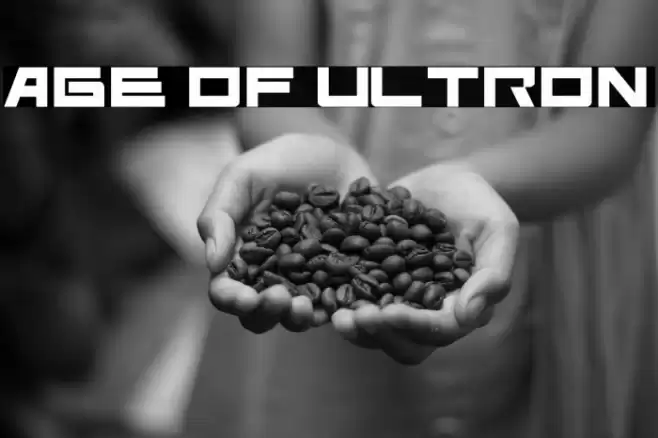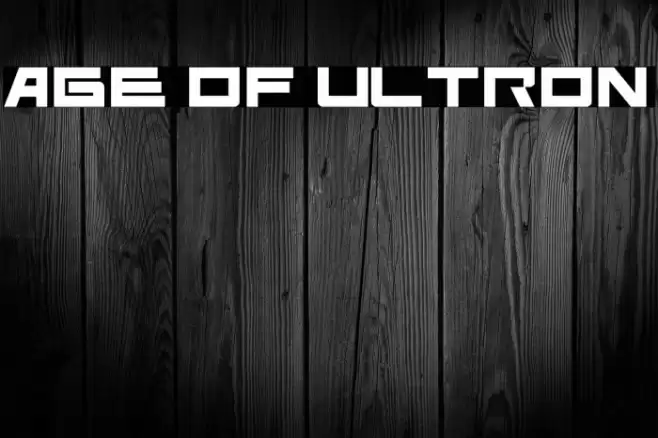
Age of Ultron Font
Age of Ultron Description
This font features a bold, futuristic design with strong geometric shapes and sharp angles. The characters are constructed with a consistent thickness, giving it a uniform and cohesive appearance. The style is reminiscent of science fiction themes, with a modern and technological feel. The uppercase letters are particularly striking, with unique cuts and lines that add a sense of movement and dynamism. The overall look is clean and structured, making it suitable for projects that require a bold statement.
A bold, futuristic font with geometric shapes and sharp angles from Uncategorized fonts.
- Proposed Projects: Ideal for movie posters, video game titles, tech branding, and sci-fi themed designs.